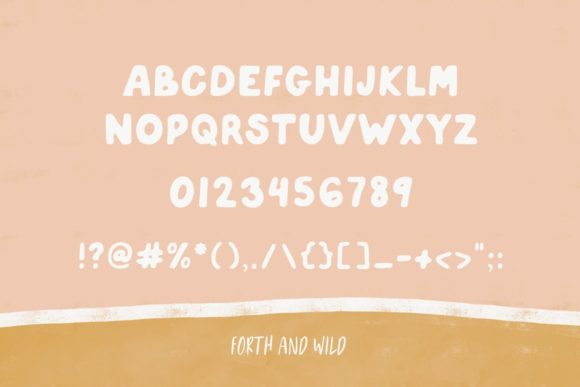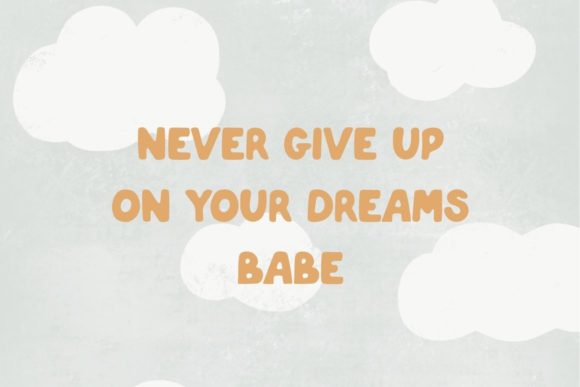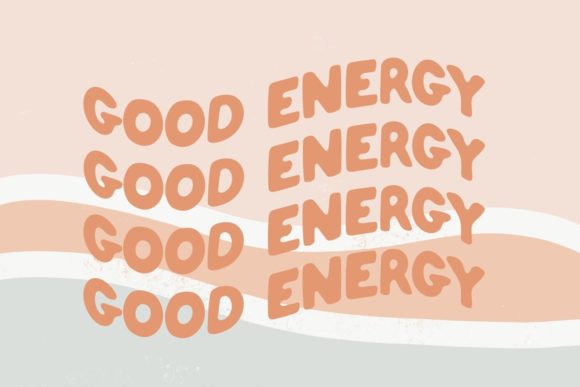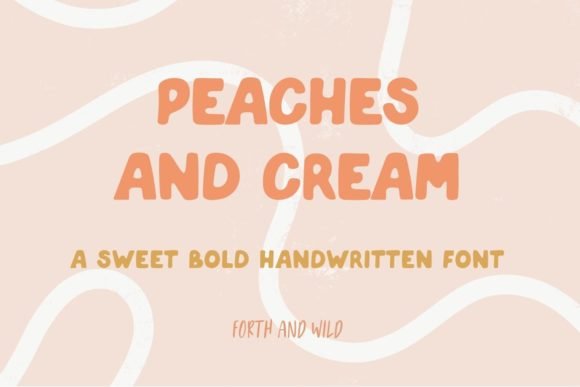
Peaches and Cream is a sweet, bold and paint brushed handwritten font.
Whether you are using it for cartoon-related designs, children games, quotes, titles, brand names, book covers, posters, or just any creation that requires a touch of joy, this font is a great choice .